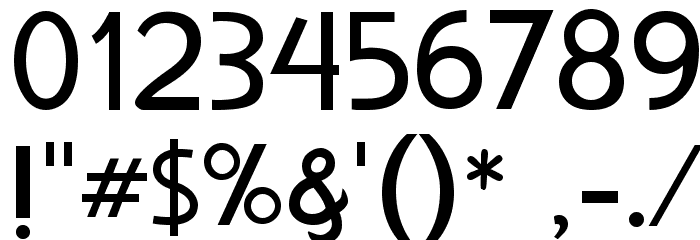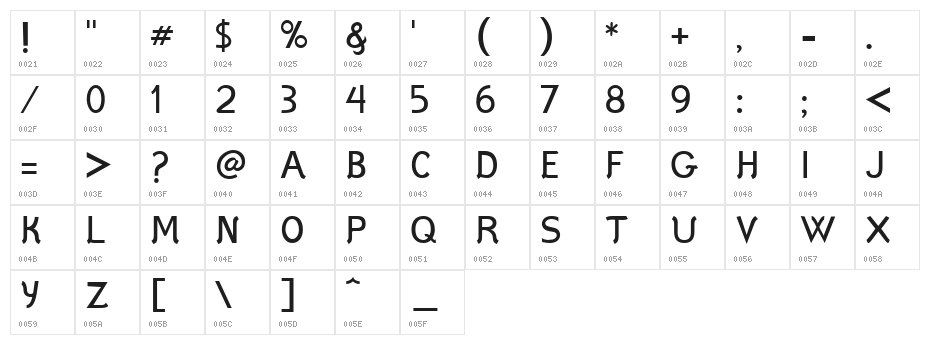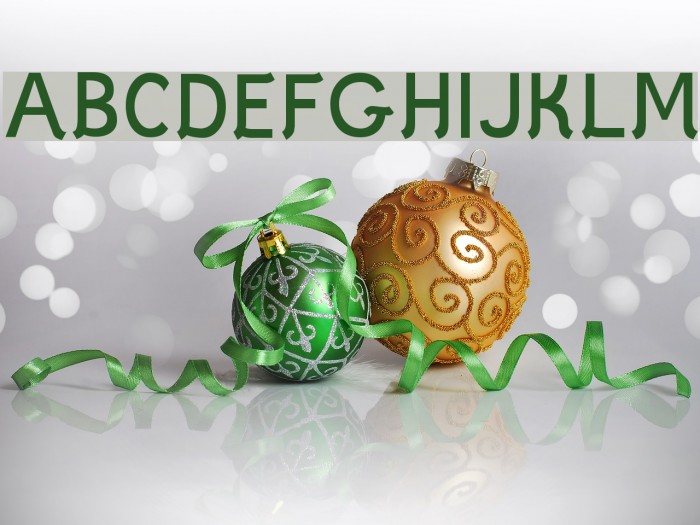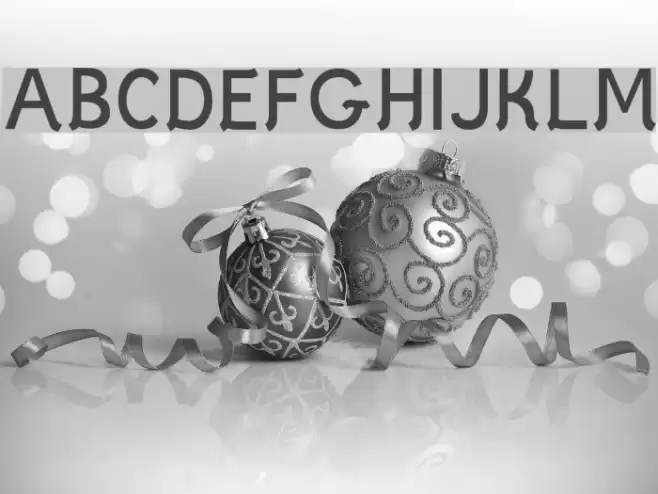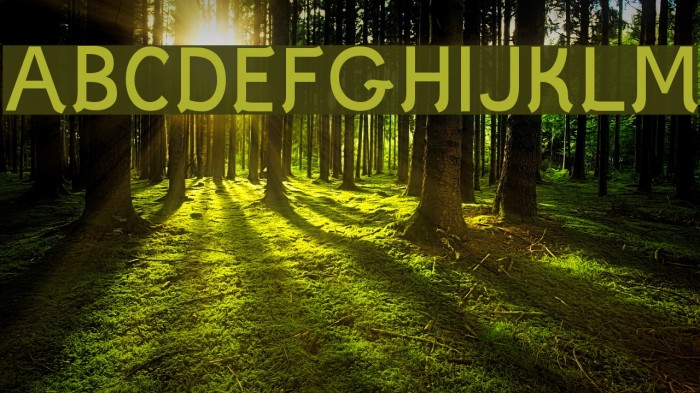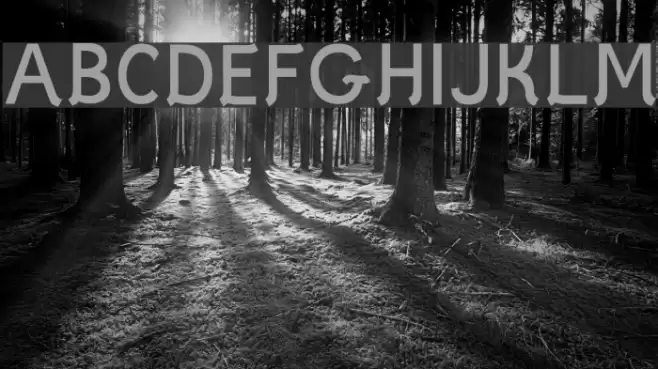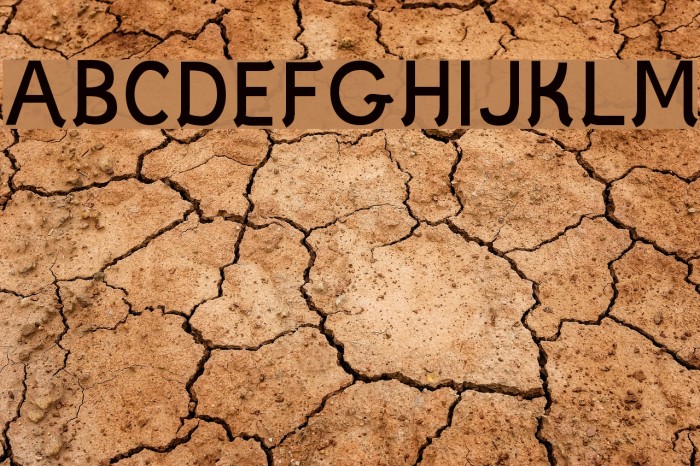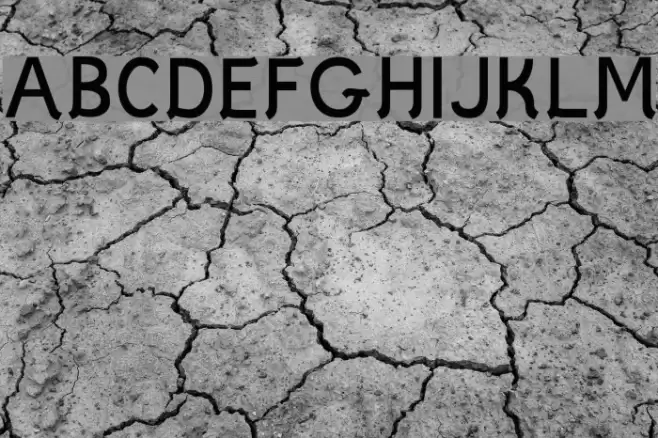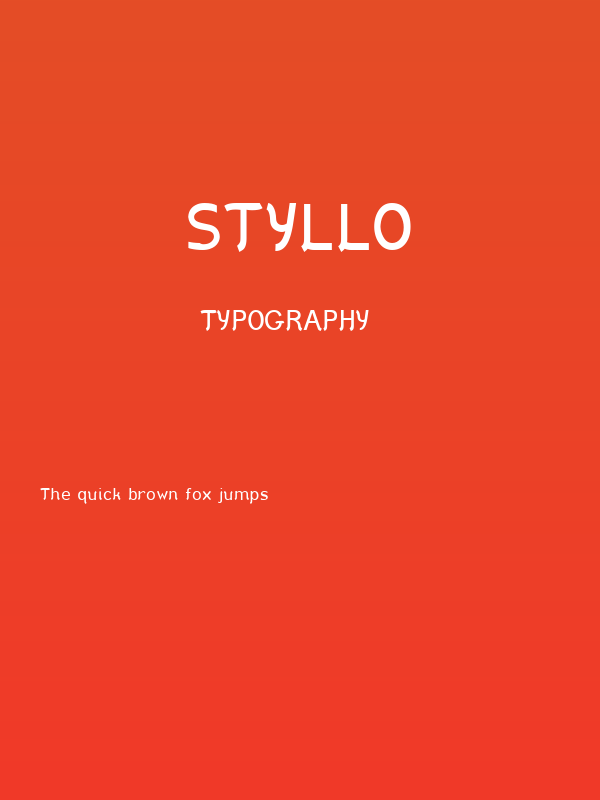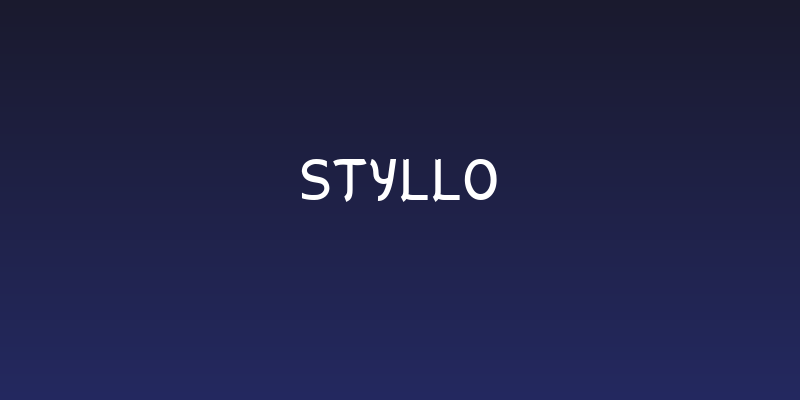
Styllo Font
Styllo Description
This font features a modern and clean design with a geometric structure. The characters are well-balanced with a slight curvature that adds a touch of elegance. The uppercase letters are bold and assertive, while the lowercase letters maintain a consistent flow. Numbers are clear and easy to read, making them suitable for various applications. The special characters are distinct and integrate seamlessly with the rest of the set, providing versatility for different design needs.
| Proposed Projects | Ideal for branding, advertising, and digital media projects that require a modern and professional look. |